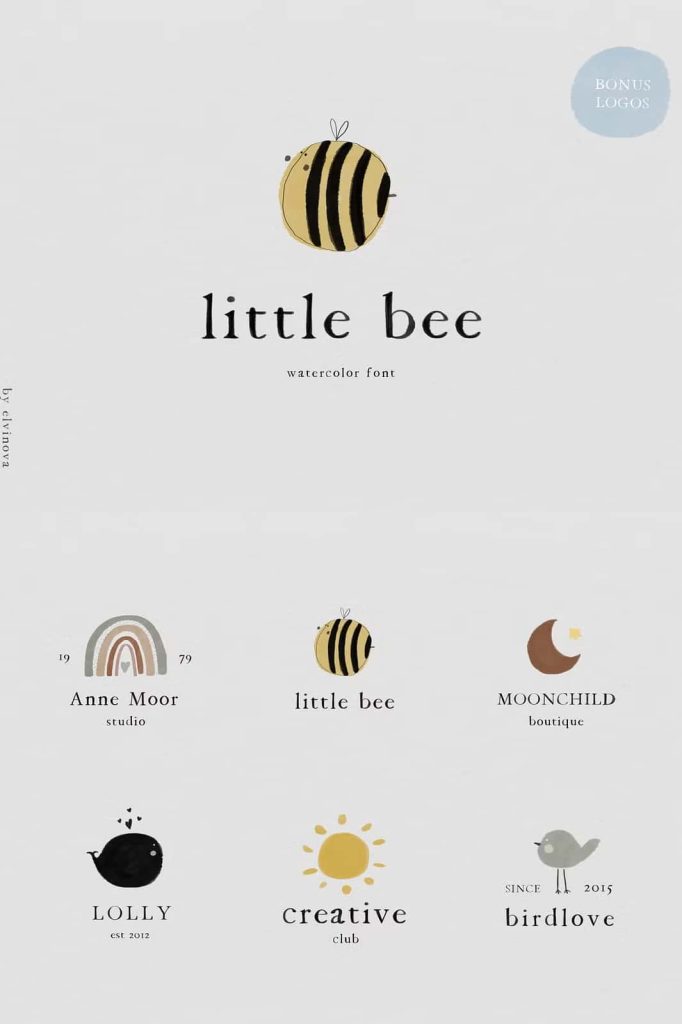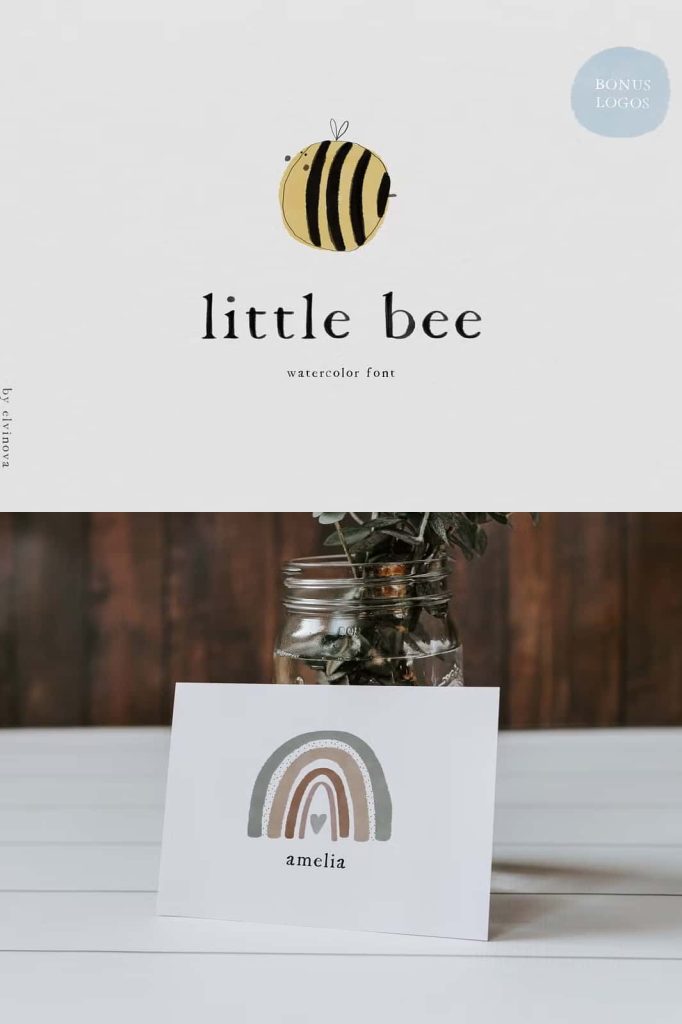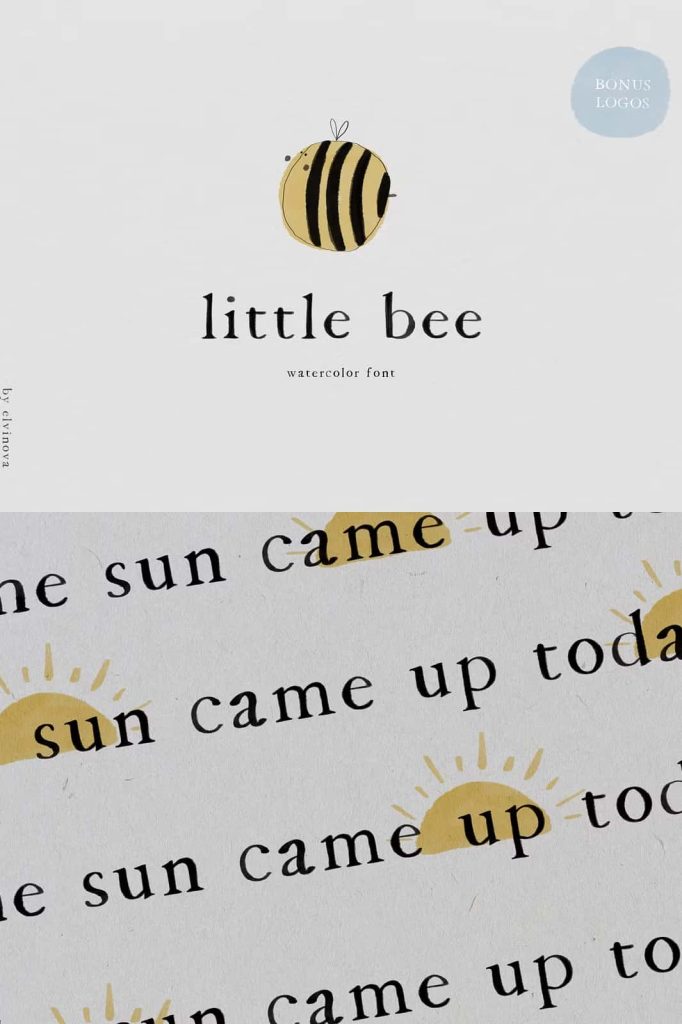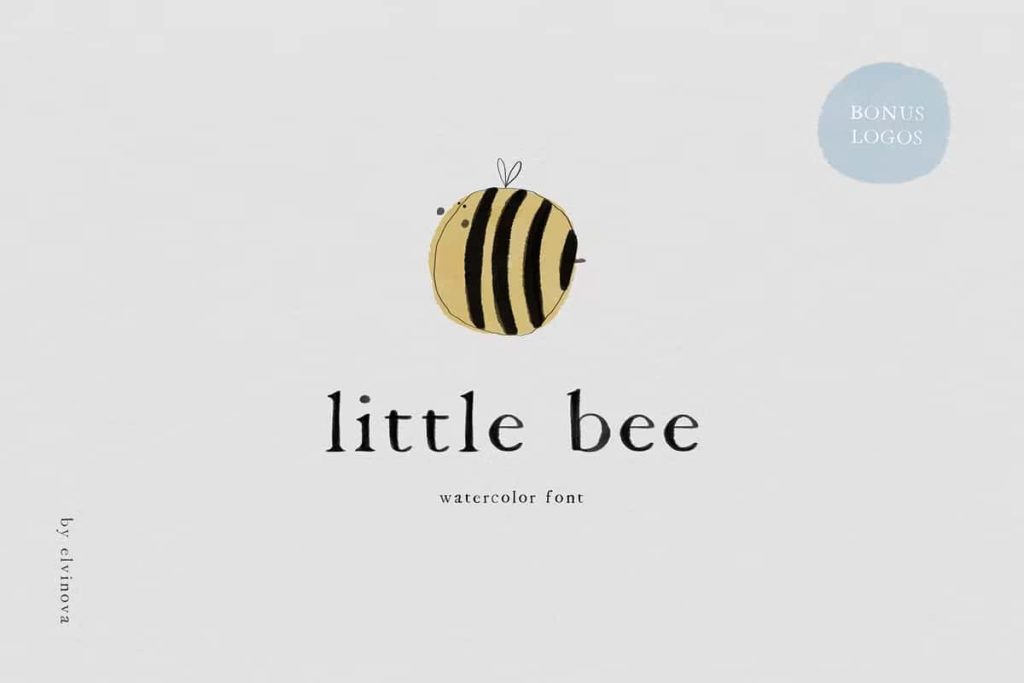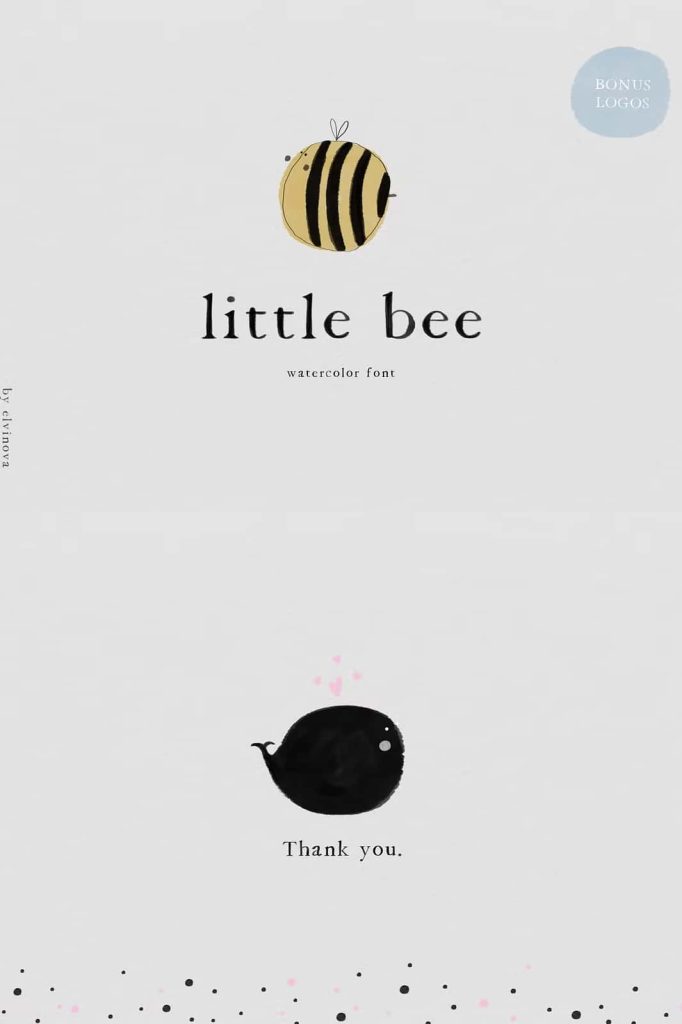
Little Bee Display Serif Typeface
Little Bee is a charming display serif typeface designed to bring sweetness and personality into creative projects. This delightful font collection combines expressive serif lettering with adorable illustrations, creating a playful visual style that immediately captures attention. The letterforms feature soft curves, friendly proportions, and decorative touches that give every word a warm and welcoming feeling.
Designers often search for fonts that feel distinctive while remaining easy to use across different projects. Little Bee answers that need by providing a display serif typeface that balances elegance with playfulness. Its characters carry a lighthearted tone that works beautifully in designs that aim to feel joyful, cute, and visually engaging.
With its combination of typography and illustrations, Little Bee offers more than just a font. It provides a creative toolkit that allows designers to build expressive compositions quickly. Whether you work on branding, posters, greeting cards, or digital content, this typeface helps you create designs that look charming and memorable.
A Sweet and Playful Display Serif Typeface
Little Bee stands out because of its playful interpretation of the classic serif style. Traditional serif fonts often communicate elegance and structure, but Little Bee adds a layer of warmth and friendliness to that foundation. The characters maintain clear readability while introducing gentle curves and lively shapes that feel cheerful and inviting.
Each letter carries a unique personality that enhances the overall design. The carefully shaped serifs and balanced proportions allow text to remain readable while still expressing a creative and decorative tone. Designers can use Little Bee as a headline font to create titles that immediately draw attention.
The display nature of the typeface makes it particularly effective for bold and expressive layouts. When used in headlines or logo designs, the font creates strong visual impact while maintaining a soft and approachable style.
Includes Cute and Charming Illustrations
In addition to its expressive typography, Little Bee includes a collection of cute illustrations that perfectly complement the typeface. These illustrations add an extra layer of charm and storytelling to your designs. Instead of searching for separate decorative elements, designers can easily integrate these visuals into their layouts.
The illustrations follow the same playful design language as the font itself. This consistency ensures that every element works together harmoniously. Designers can combine the illustrations with text to create engaging compositions for posters, greeting cards, packaging, and promotional materials.
These decorative elements also help bring personality into branding projects. Small icons and playful visuals can frame text, decorate titles, or highlight key messages, making designs feel more lively and memorable.
Perfect for Logos, Cards, and Posters
Little Bee performs exceptionally well in design projects that require a friendly and approachable visual style. The font works beautifully for logos, greeting cards, posters, and creative branding materials. Its cheerful appearance helps communicate warmth and positivity, which makes it ideal for brands and projects that want to connect emotionally with their audience.
Designers can use Little Bee to craft unique logos that feel creative and welcoming. The distinctive serif shapes help brands stand out while maintaining a playful character. Small businesses, craft brands, children’s products, and lifestyle brands can all benefit from this charming typography.
Greeting cards also become more expressive when paired with Little Bee. The font’s joyful tone complements messages of celebration, friendship, and appreciation. Whether designing birthday cards, thank-you notes, or seasonal greetings, the typeface helps create a heartfelt visual experience.
A Versatile Typeface for Creative Projects
Although Little Bee shines in logos and printed materials, its versatility allows it to work across many types of design projects. Designers can apply it to social media graphics, packaging design, merchandise, and digital promotions. The playful serif structure ensures the font remains clear while adding personality to any composition.
Pairing Little Bee with simple sans-serif fonts can create balanced typography systems. The serif characters can serve as decorative headlines while supporting fonts handle body text. This combination allows designers to maintain readability while highlighting key messages with expressive lettering.
The addition of illustrations further expands creative possibilities. Designers can use these elements to create themed layouts, decorative frames, or playful visual accents that reinforce the overall concept.
Create Designs That Feel Sweet and Memorable
Little Bee helps designers build projects that feel cheerful, creative, and visually engaging. Its playful display serif letterforms bring personality to headlines and titles, while the included illustrations add decorative charm. Together, they form a cohesive design system that encourages experimentation and creativity.
Whether you design logos, greeting cards, posters, or branding materials, Little Bee offers the tools needed to create delightful visual experiences. The sweet and friendly character of the typeface makes every design feel warm, inviting, and uniquely expressive.